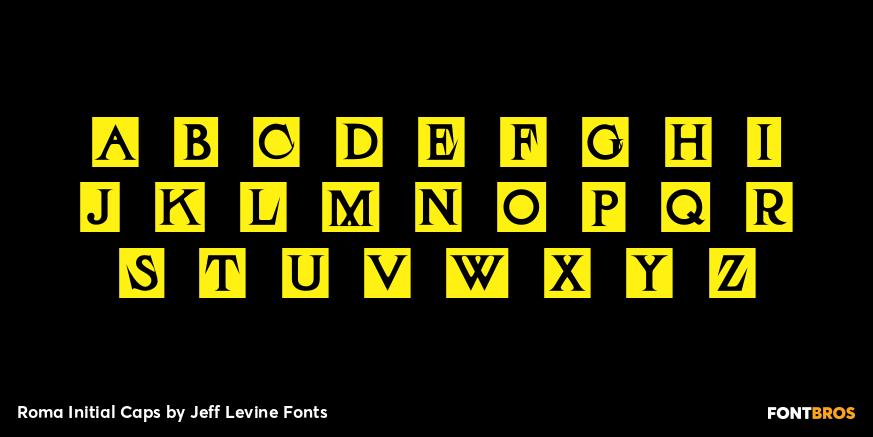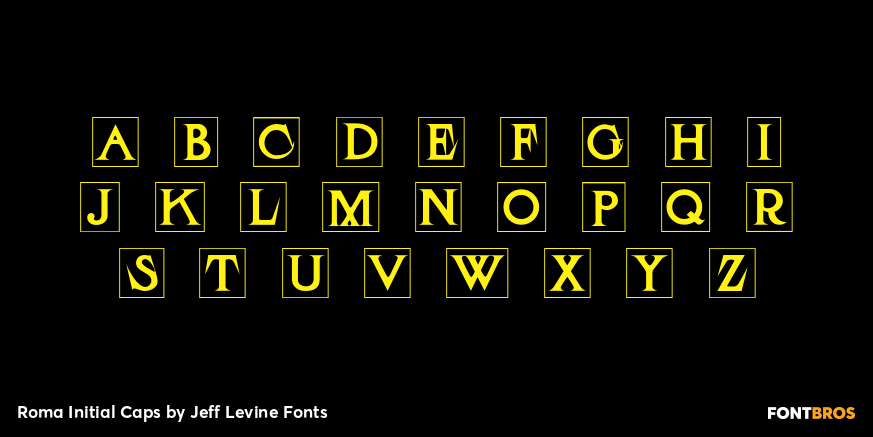
Roma Initial Caps
Roma Initial Caps JNL is a set of alphabet caps drawn from elegant lettering found in an old sign painter's manual. The upper case keys have the letters in white on black backgrounds, while the lower case has the letters in black on a white background with a black border.